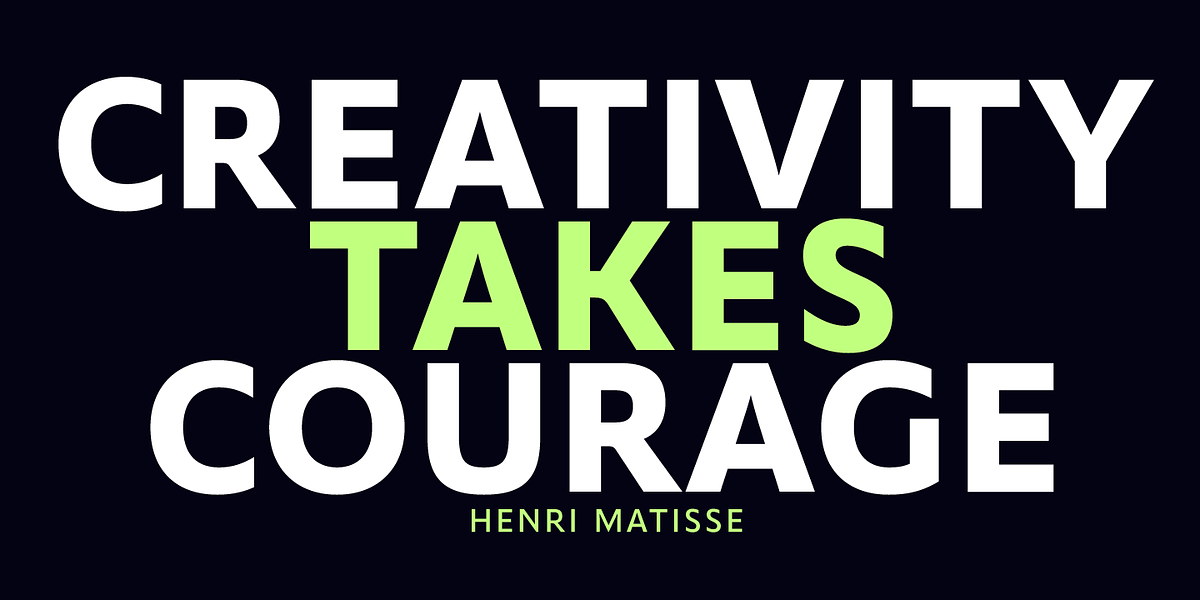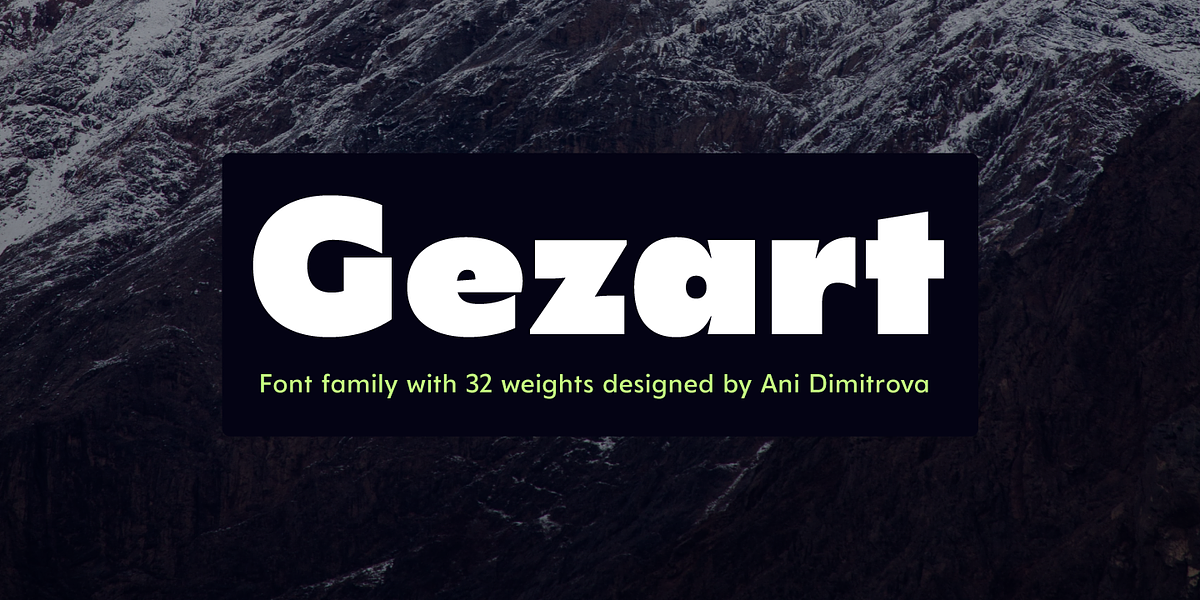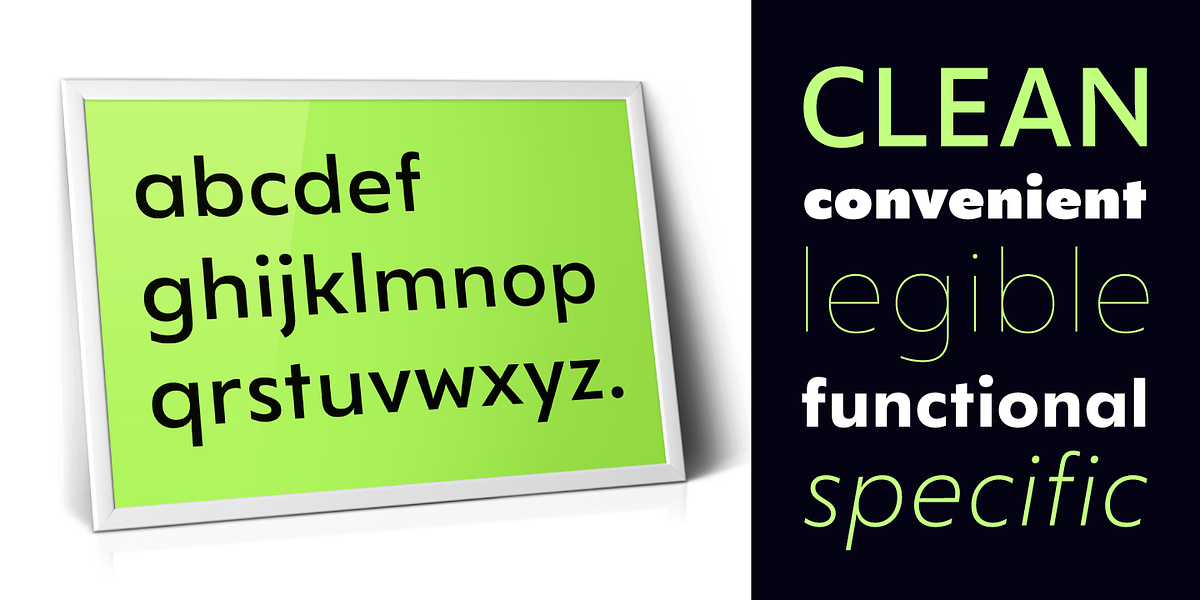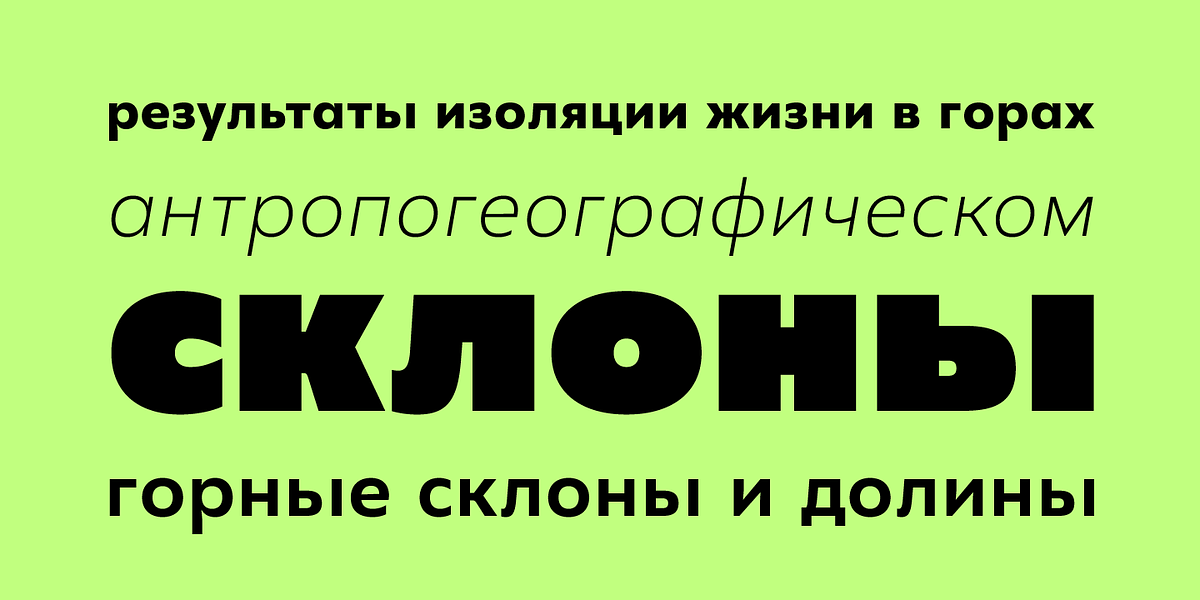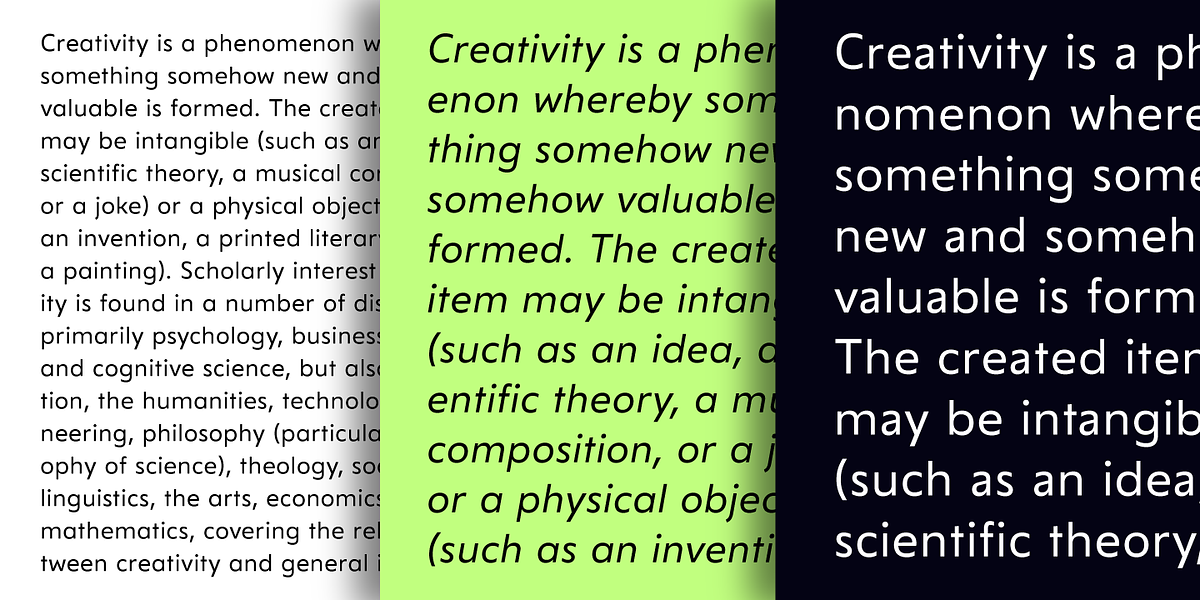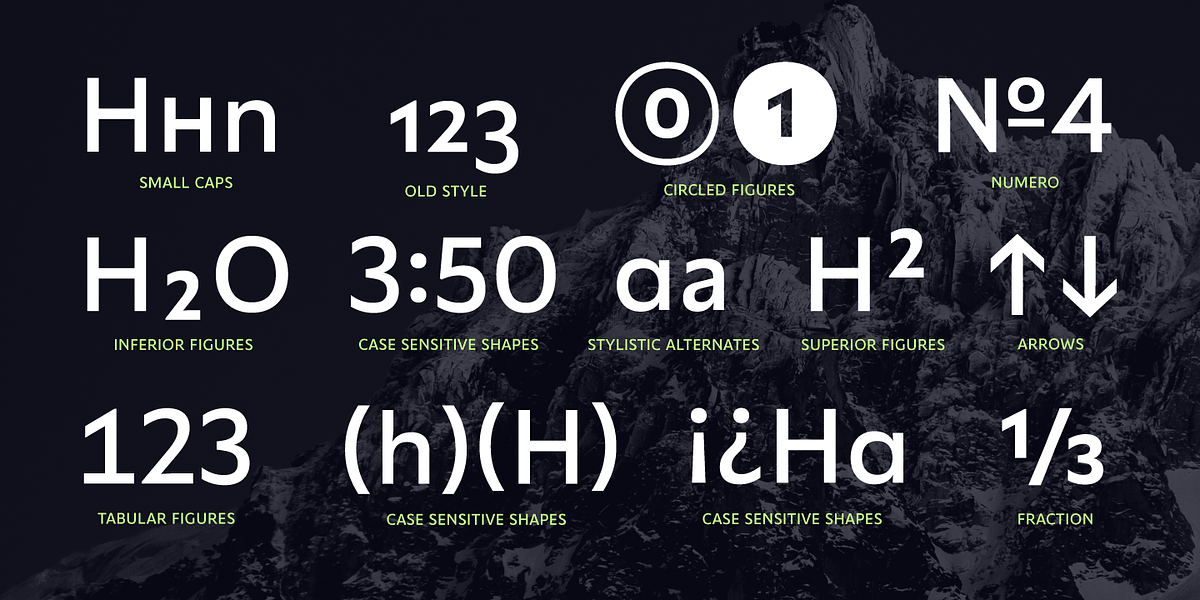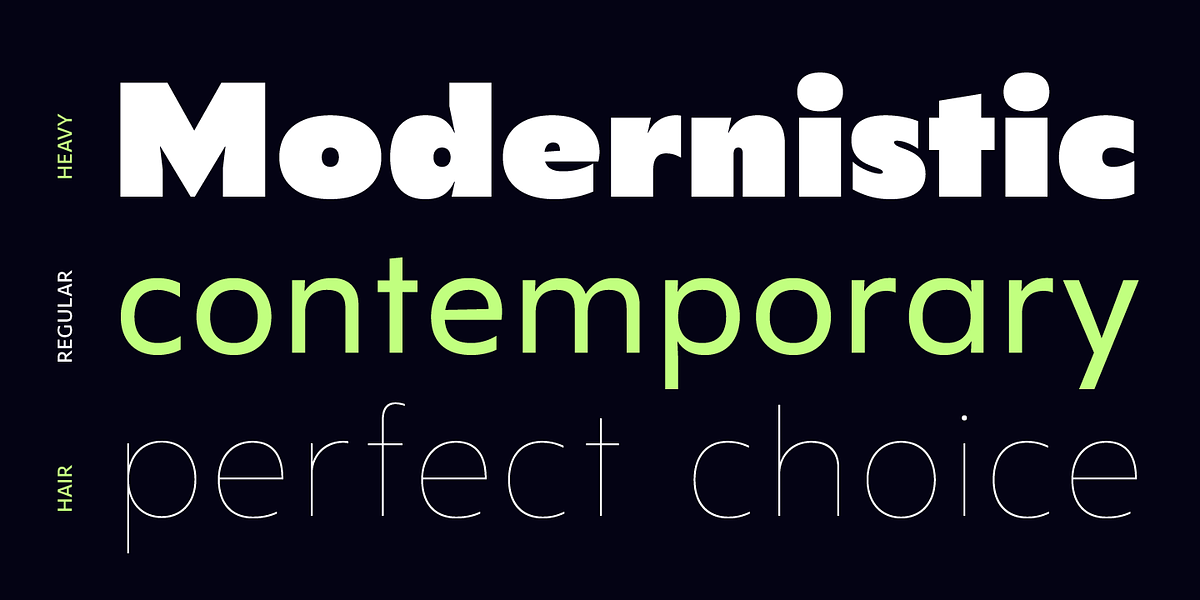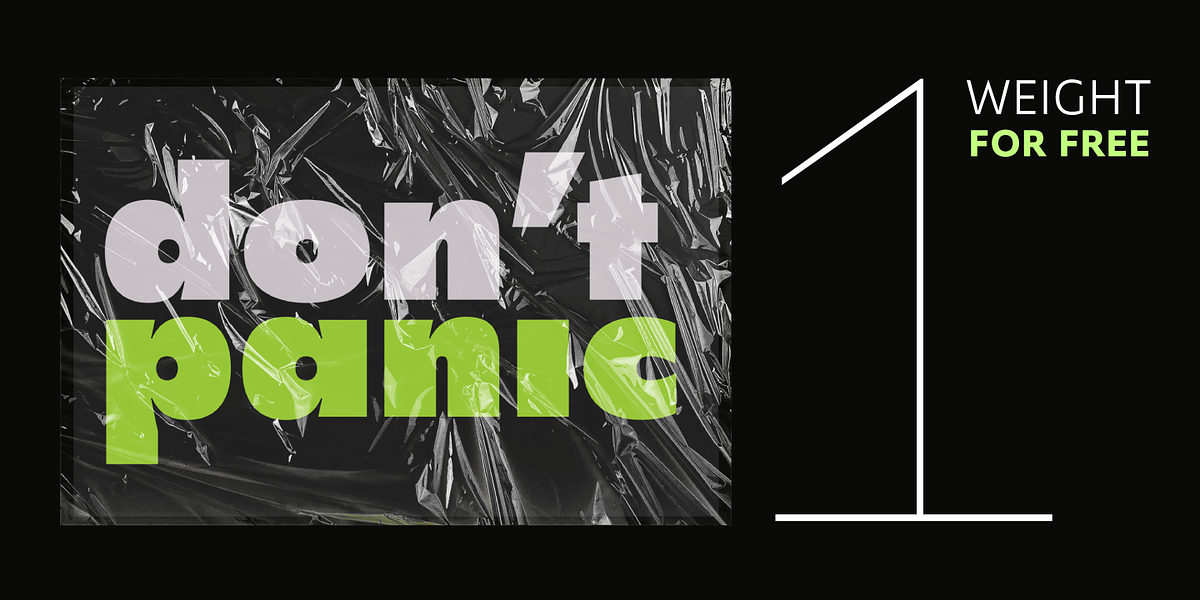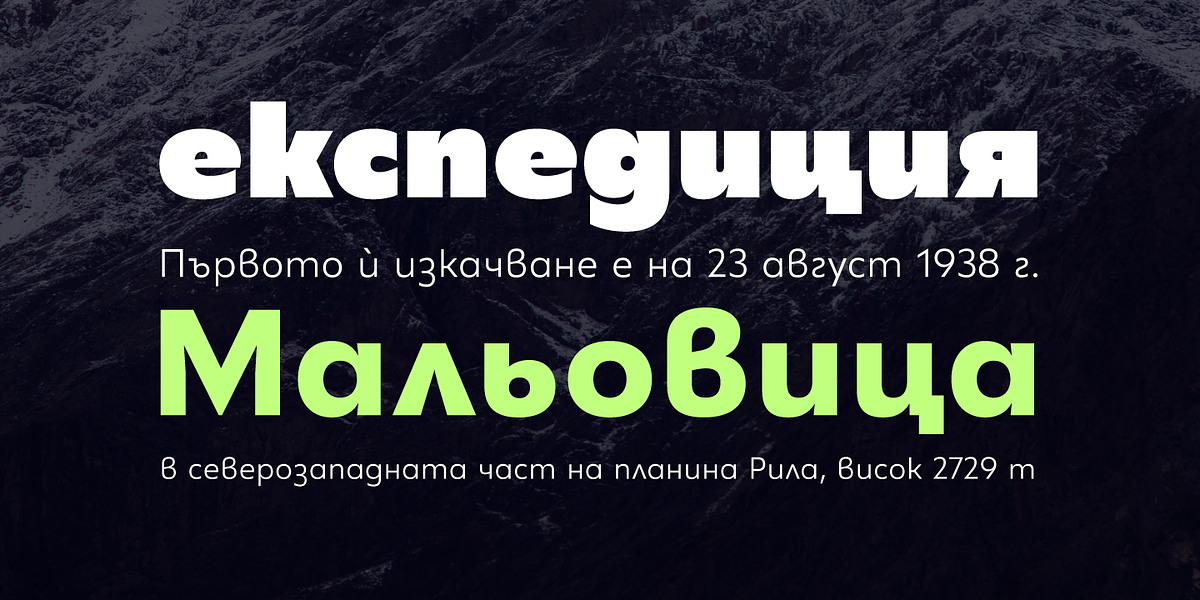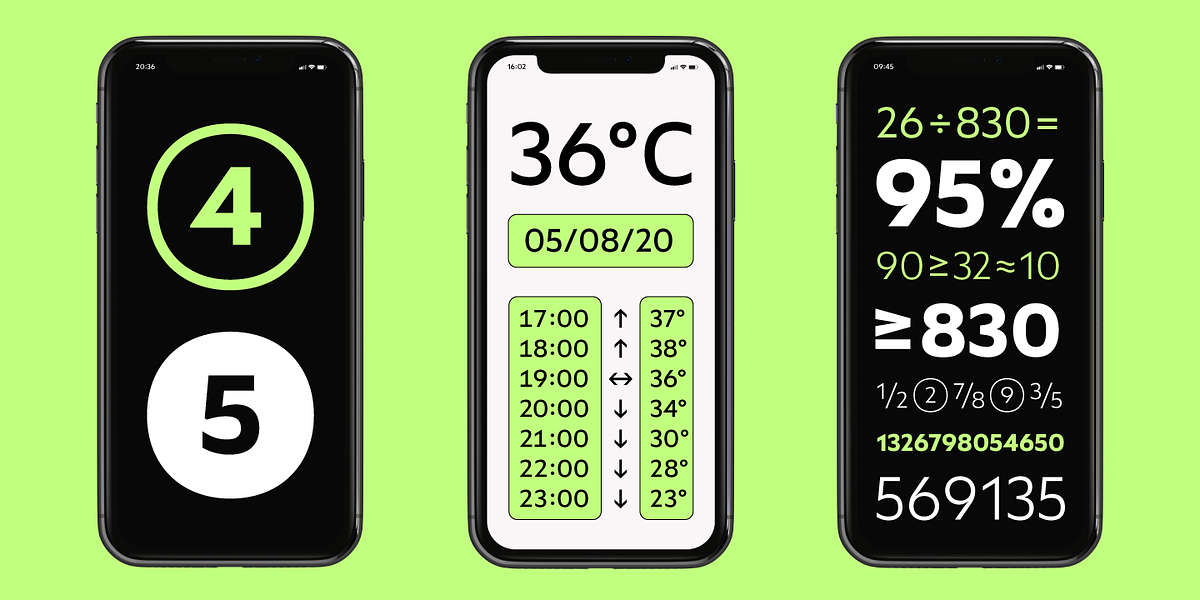
Gezart
Gezart is a modern sans serif typeface characterized by its geometric forms. It boasts a comprehensive range of 32 weights, spanning from Hair to Heavy, with an Extra Thin weight available for free. Each weight includes over 700 glyphs and supports advanced typographic features such as small caps, localized forms, old-style figures, ligatures, and various symbols. Gezart's versatility makes it suitable for a wide array of applications, including branding, layout design, posters, body text, web design, and editorial projects.